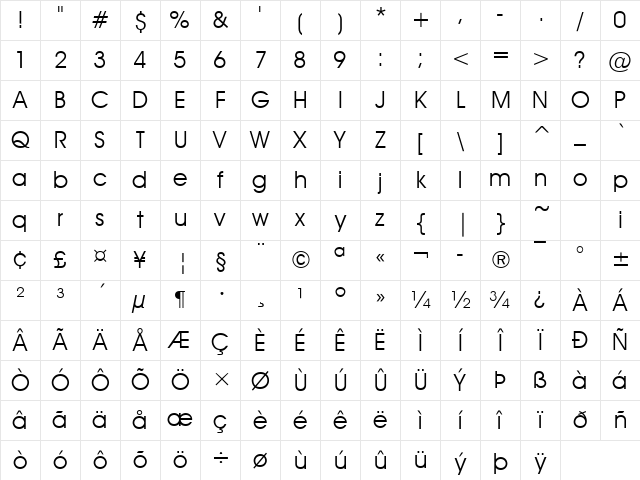
Advantage Regular
Advantage Family
Design Context for Advantage
Advantage is a composed and adaptable typeface that performs quietly and consistently across a wide range of design contexts.